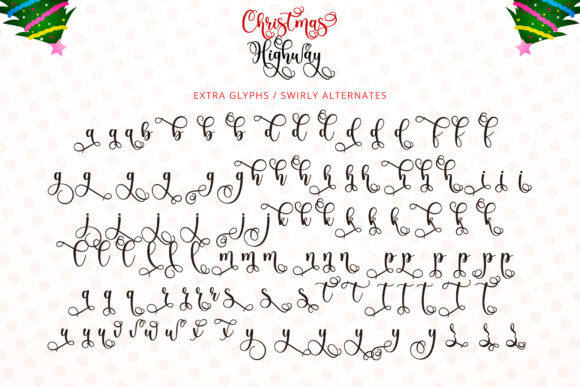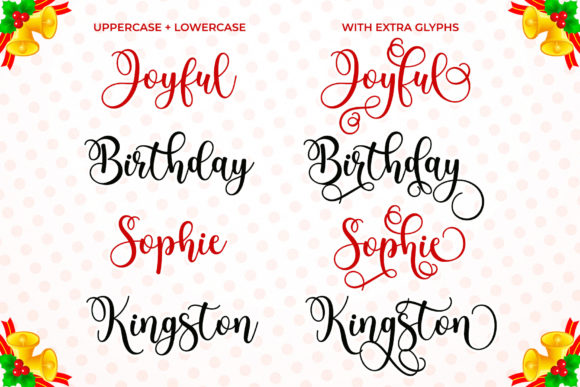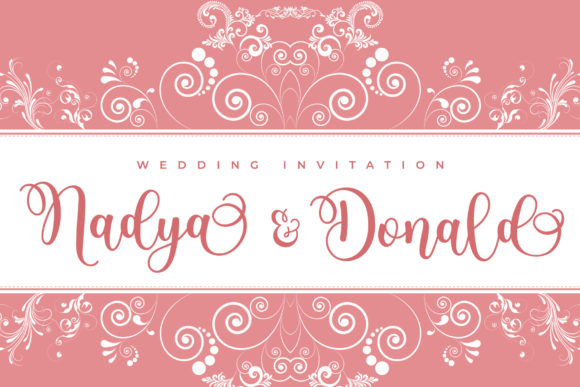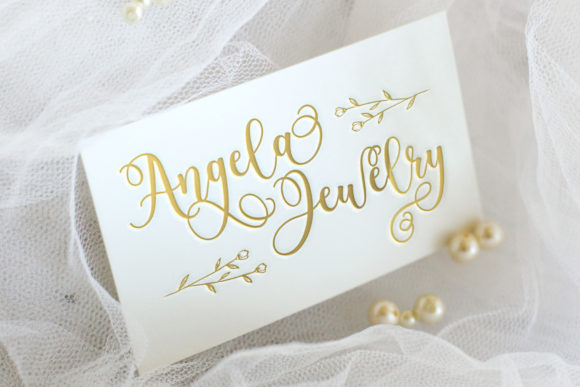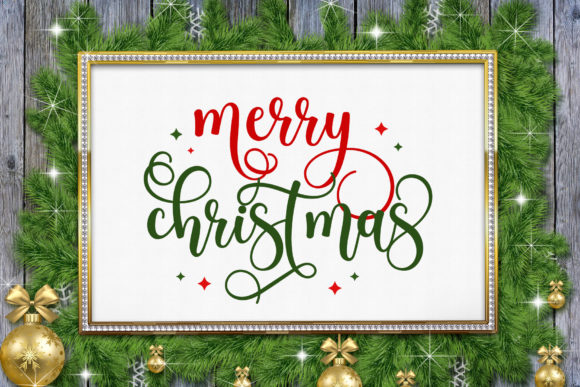
About Christmas Highway Font
Christmas Highway is a highly detailed and uniquely crafted handwritten font. It is PUA encoded which means you can access all of the glyphs and swashes with ease!